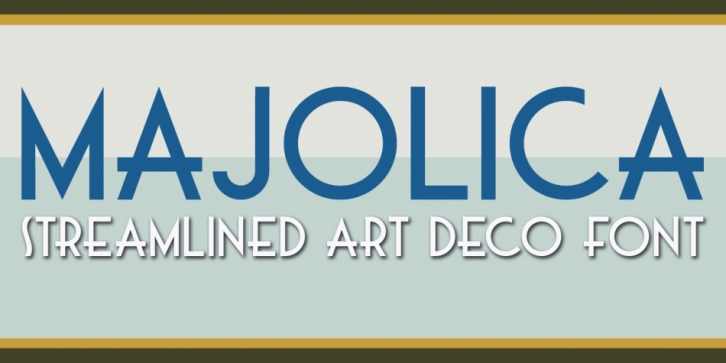
Majolica is a display sans and art deco font family. This typeface has two styles and was published by Hanoded.
If you’ve ever visited Spain or Portugal, you would have seen some beautiful Majolica (glazed tile) murals - often signage for long forgotten bakeries, butchers and clothing shops from the interbellum. Majolica font was named in honor of the artists who created these gorgeous glazed displays. Majolica font is an all caps, sans serif typeface with a ‘streamlined’ look. It comes with all diacritics.
· Majolica Regular
· Majolica Italic